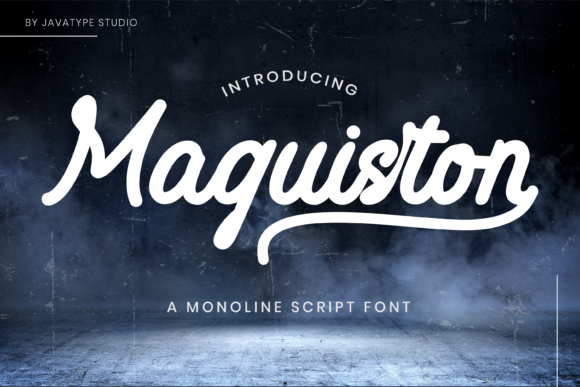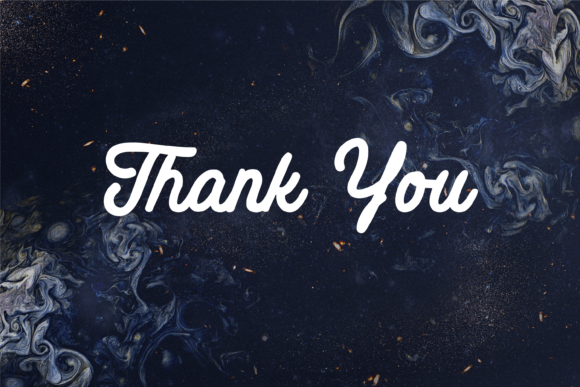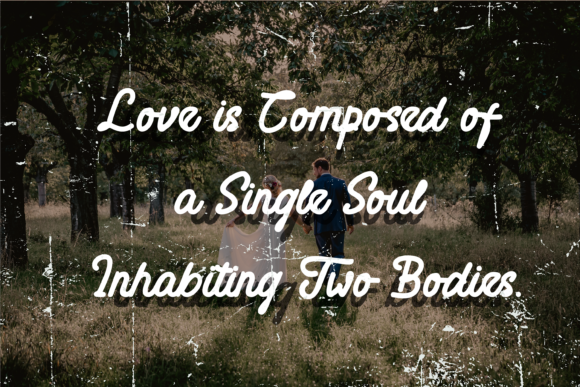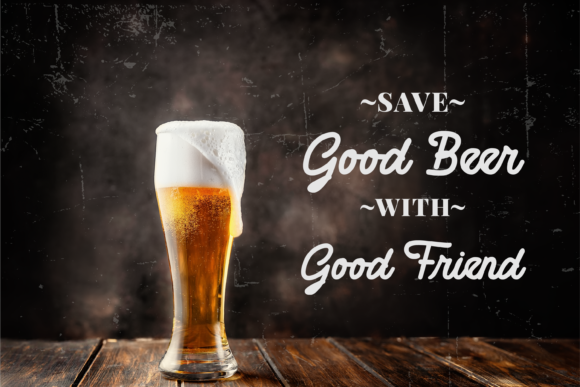
About Maguiston Font
Maguiston is a beautiful, well balanced and vintage styled script font. It is defined by smooth curves and is perfect for fashion branding or editorial designs. Add it confidently to your projects, and you will love the results.